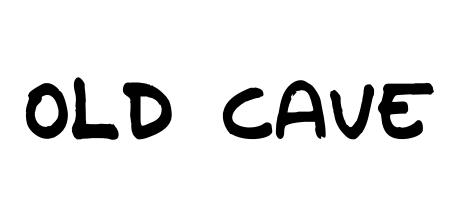
Old Cave
By skomii
Old Cave is a playful, hand-drawn style font. Its slightly irregular, rounded letters give it a casual, almost childlike charm. The strokes are bold and slightly uneven, suggesting a quick, expressive hand-lettering style. The overall effect is friendly and approachable, hinting at adventure and perhaps a bit of whimsy.